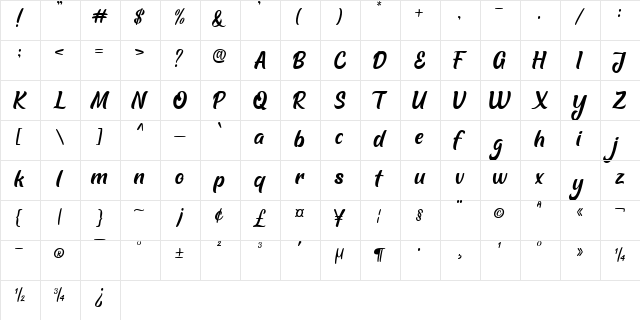
Shutle Mind Regular
| Designer | (MJB Letters). 2020. (Muhammad Mujibulloh) |
Shutle Mind is a composed and adaptable typeface that performs quietly and consistently across a wide range of design contexts.